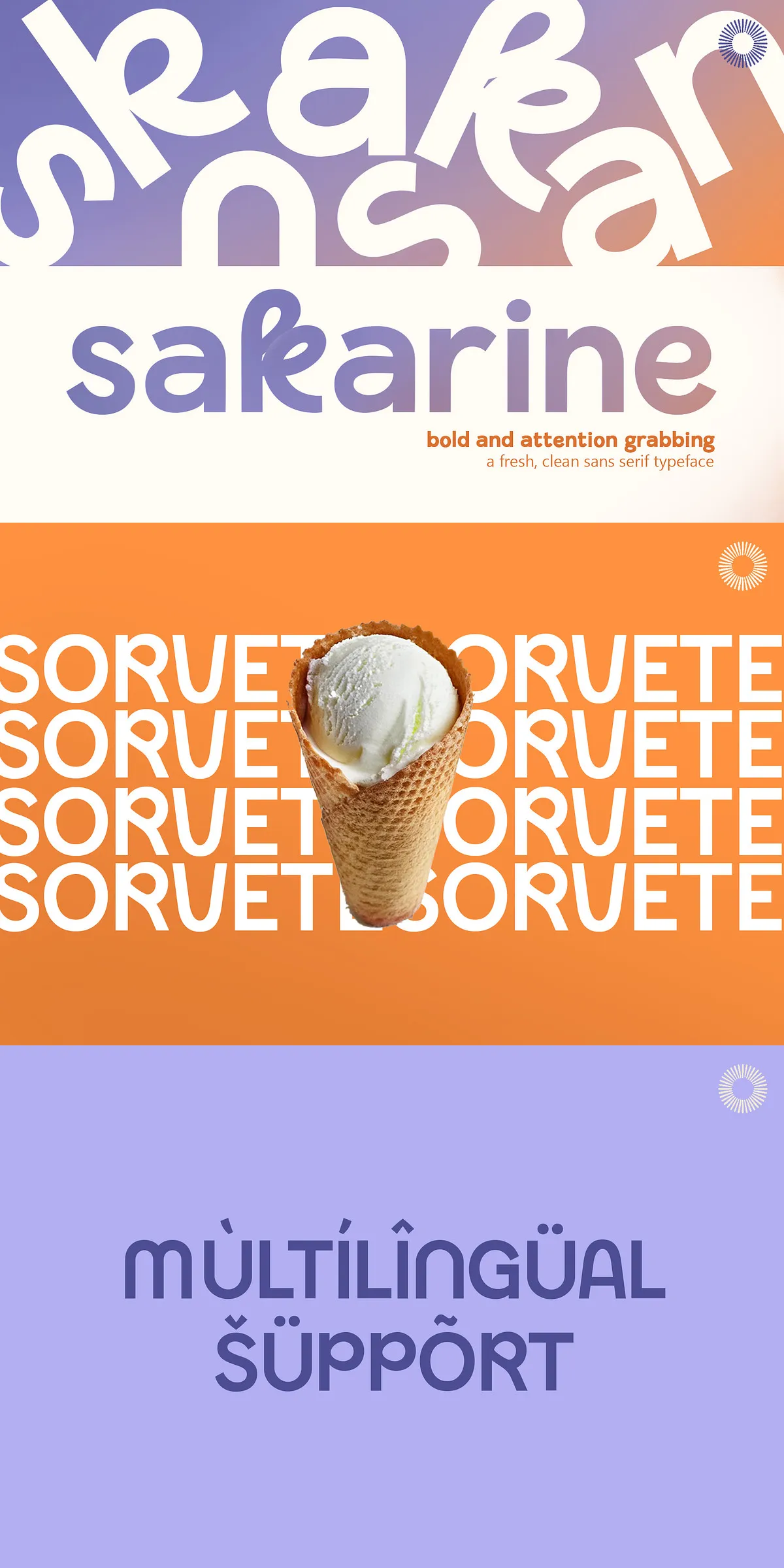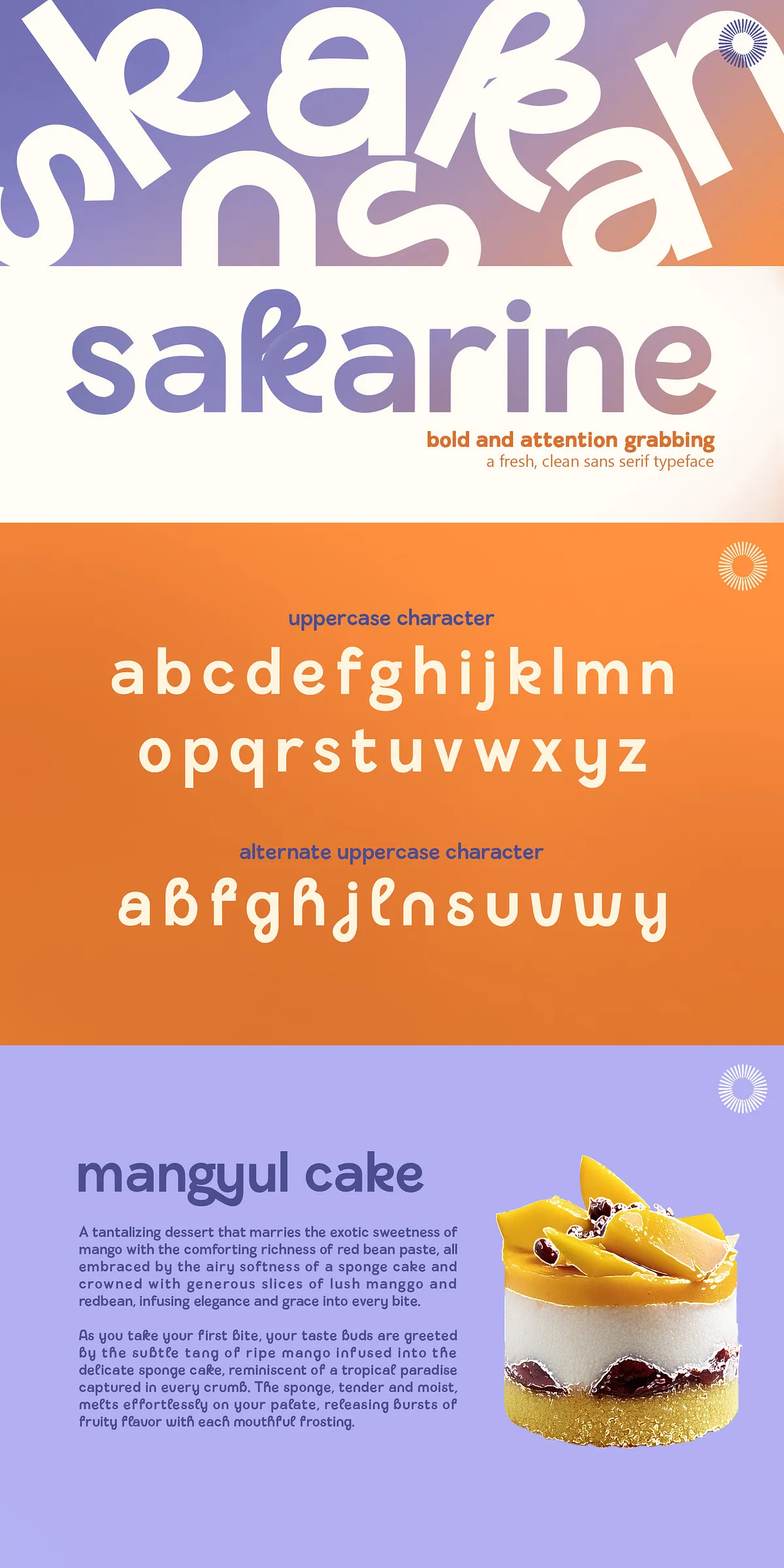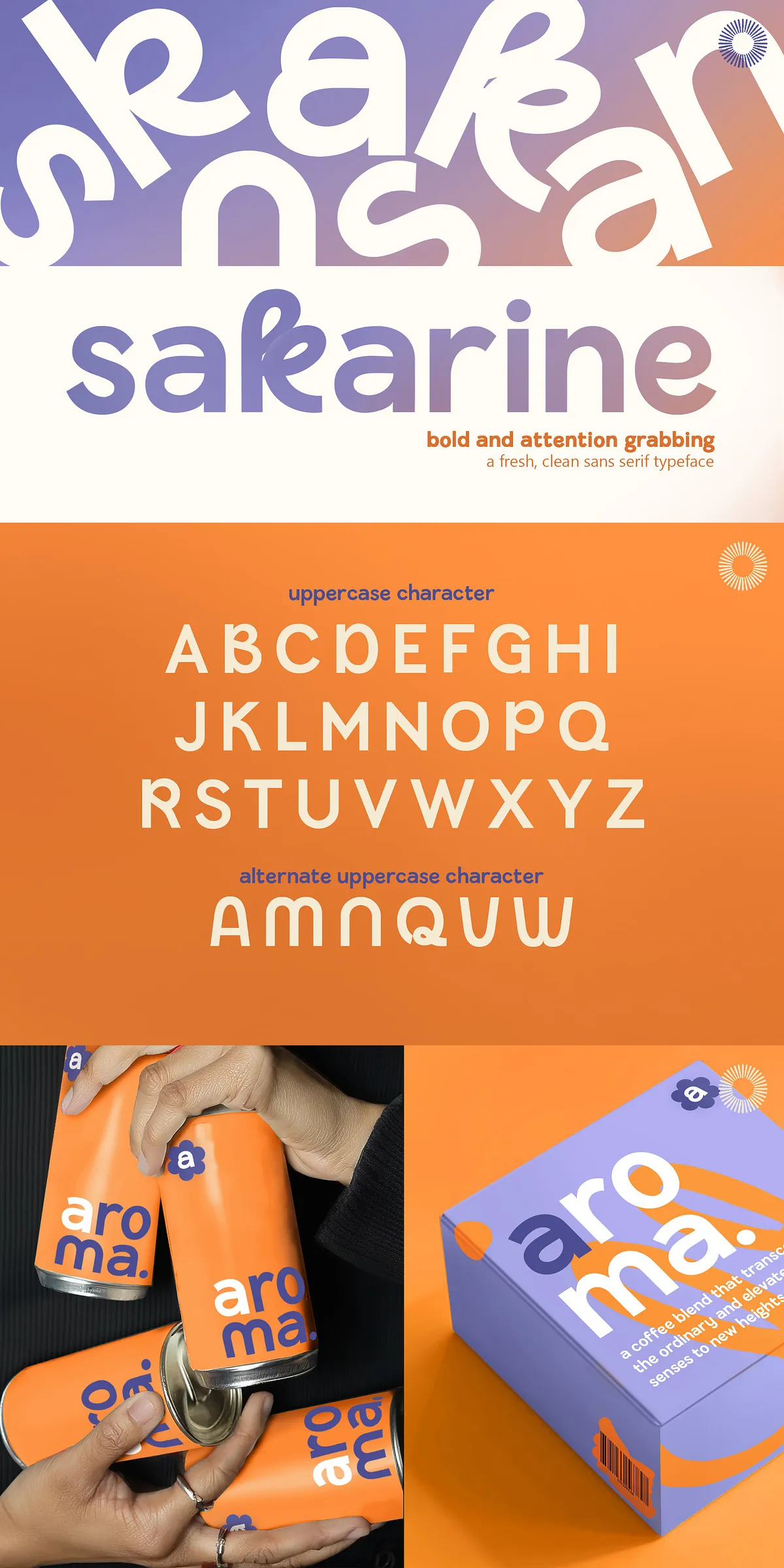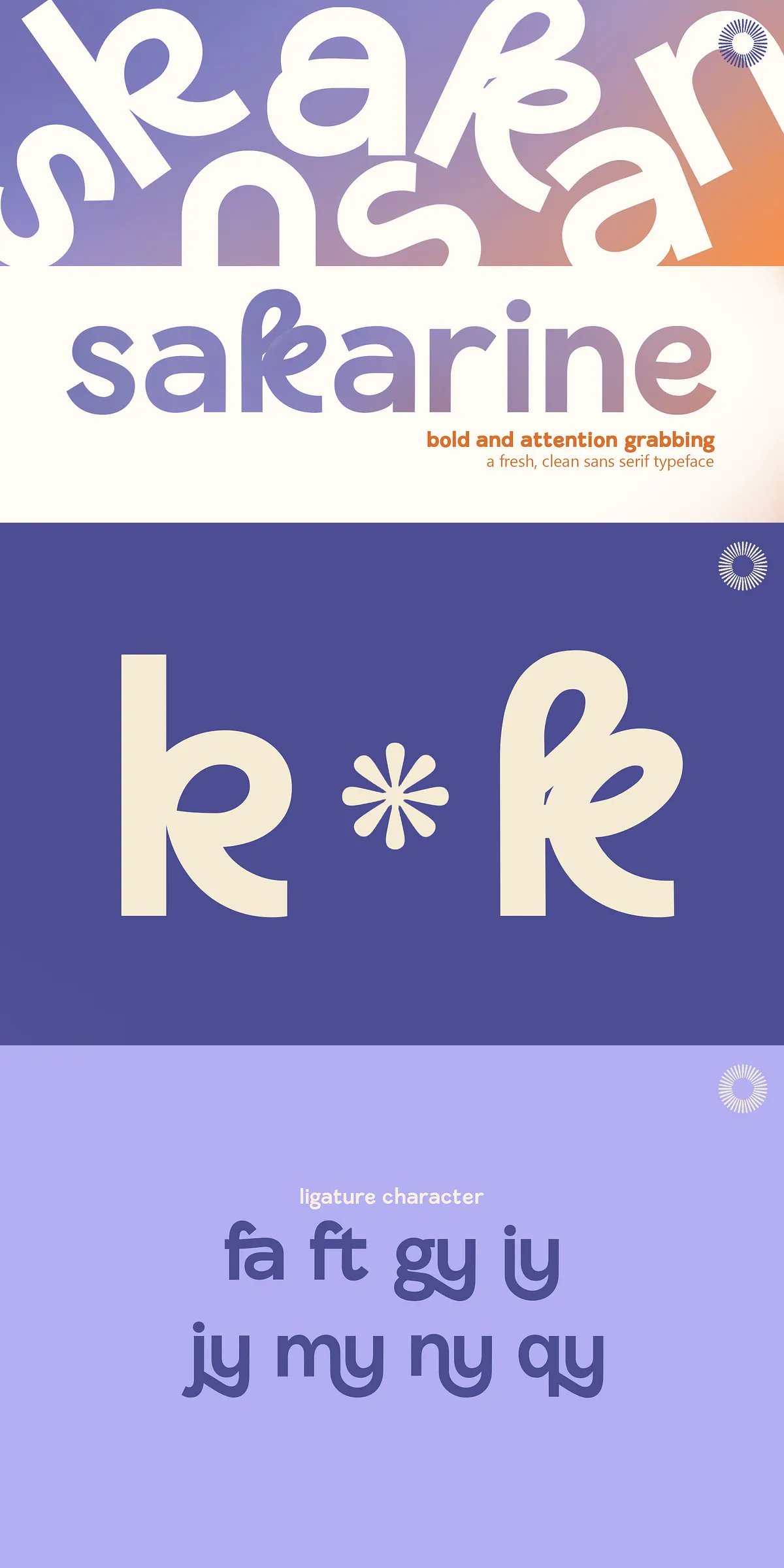
Ignite your creative projects with Sakarine, a bold and refreshing sans-serif typeface meticulously designed in 2024 by visionary artist Siela Mara for Setara Langit. Born from a simple mission—create a practical, readable, and harmonious text font—Sakarine evolved into something far more powerful: a design statement. Its clean lines, thoughtful proportioning, and unexpectedly dynamic character forms merge functionality with expressive flair, delivering a typeface that feels both grounded and daring.
Crafting a Typeface with Purpose and Passion
Sakarine wasn’t built from a checklist—it was born from a creative journey. While the foundation began with readability and typographic balance, the moment Siela Mara touched the first letterform, the design took a bold turn. Unexpected stylistic flourishes emerged—subtle but intentional—lending the font a personality that feels alive, authentic, and effortlessly modern. Every stroke, curve, and spacing decision was made with purpose, transforming Sakarine from a functional tool into a design companion.
Bold Structure Meets Refined Elegance
Sakarine blends geometric precision with organic rhythm. Its clean lowercase forms, uniform stroke weights, and balanced counters ensure crisp readability at any size. Yet, it’s not sterile. Its unique letterforms—like the slightly flared terminals and subtly dynamic x-height—add visual interest and movement, making text not just legible, but memorable. Whether used in long-form content or impactful headlines, Sakarine maintains clarity, confidence, and presence.
- Italic Version: Adds expressive depth with graceful slant and fluid motion—perfect for emphasis and storytelling.
Design Without Limits, Access Without Hurdles
Power Your Projects with a Modern, Dynamic Typeface
Choose Sakarine when you want to stand out with clean, professional design that still carries soul. Use it for:
- Branding Identity: Build a modern, trustworthy image with a font that feels fresh and intentional.
- Website & UI Design: Deliver sharp, responsive text with excellent screen legibility and speed.
- Editorial Layouts: Enhance articles, magazines, and digital publications with readable, stylish typography.
- Poster & Packaging Design: Add bold impact with a font that commands attention without sacrificing elegance.
Sakarine isn’t just a font—it’s a creative partner. It’s the result of vision, precision, and passion. Craft bold narratives. Design with clarity. Lead with confidence. Choose Sakarine—where function meets flair, and every letter tells a story.